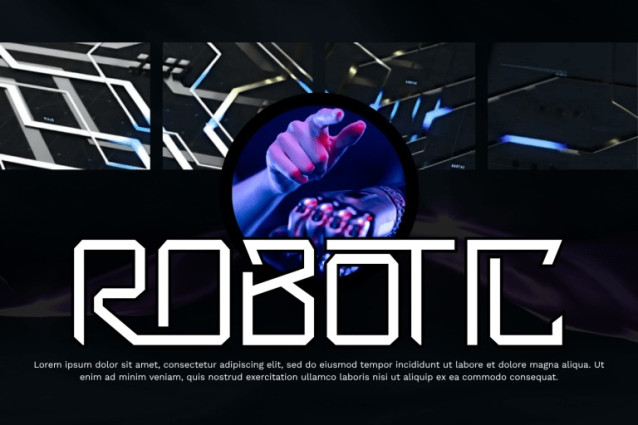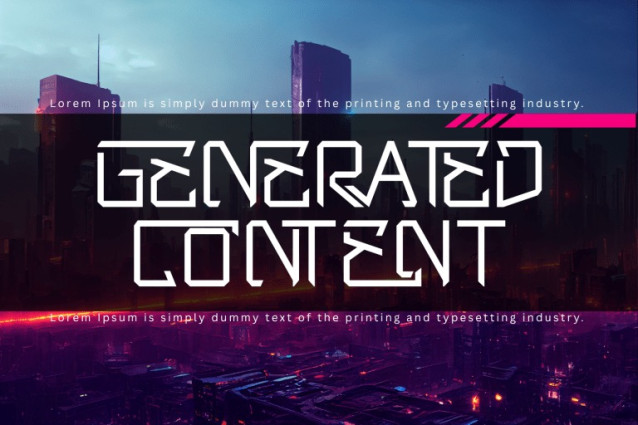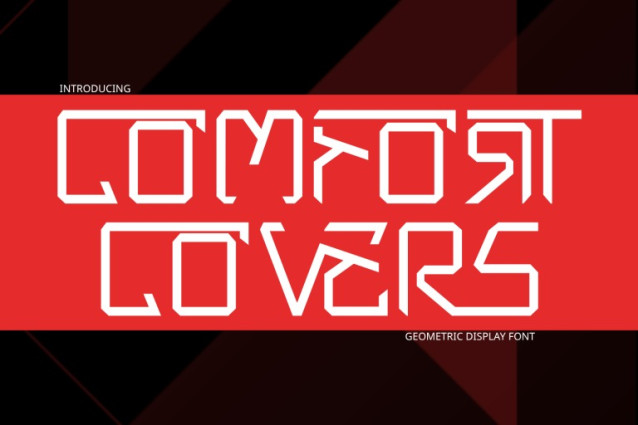
Comfort Covers Font
COMFORT COVERS – ANGULAR FONT is a bold futuristic display font inspired by modern technology, sci-fi aesthetics, and geometric precision. Built with sharp angular cuts and clean structural lines, this typeface delivers a strong digital and mechanical feel that instantly captures attention. Each character features a unique, experimental form with precise edges and minimalist stroke contrast, creating a sleek and high-tech visual identity. COMFORT COVERS is perfect for gaming titles, tech branding, cyberpunk posters, logos, and innovative design projects that require a cutting-edge look.
🔤Features:
Uppercase & Lowercase Letters
Around 100 Special Ligatures & Alternates
Accented Characters for multilingual support
🔤About 100 ligatures combined with Stylistic Alternates Font:
AC AD AL AN AR AS AT AU AV BE CA CE CH CO CT DE DI EA EC ED EE EL EM EN EP ER ES ET FE FO FR GE HA HE HI HO IE IC IL IN IO IR IS IT JU KE LA LE LI LL LO LY MA ME MI NC ND NE NG NO NT NS OC OF OM ON OO OP OR OT OU OW PA PR RA RD RE RI RO RS RT SE SH SI SO SS ST TA TE TH TI TO TR TT UM UN UR VE WI WO